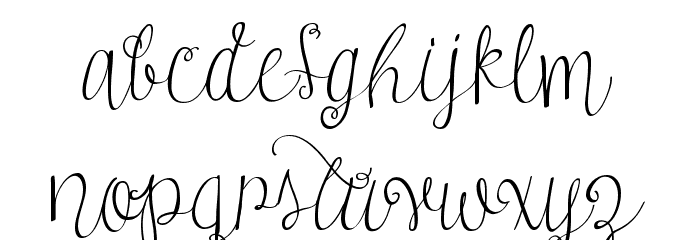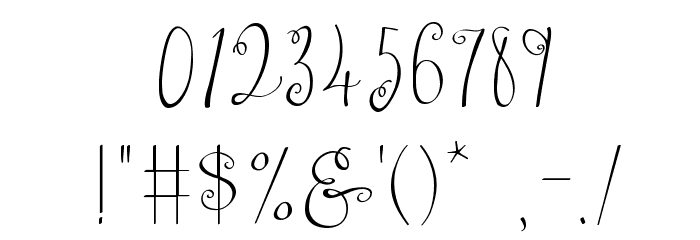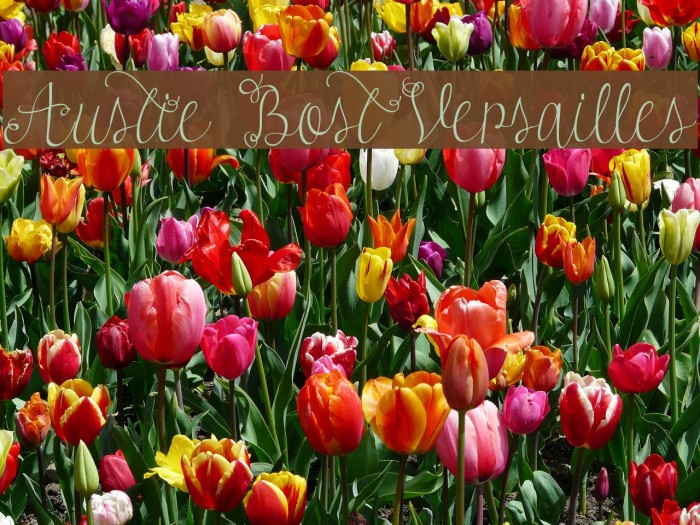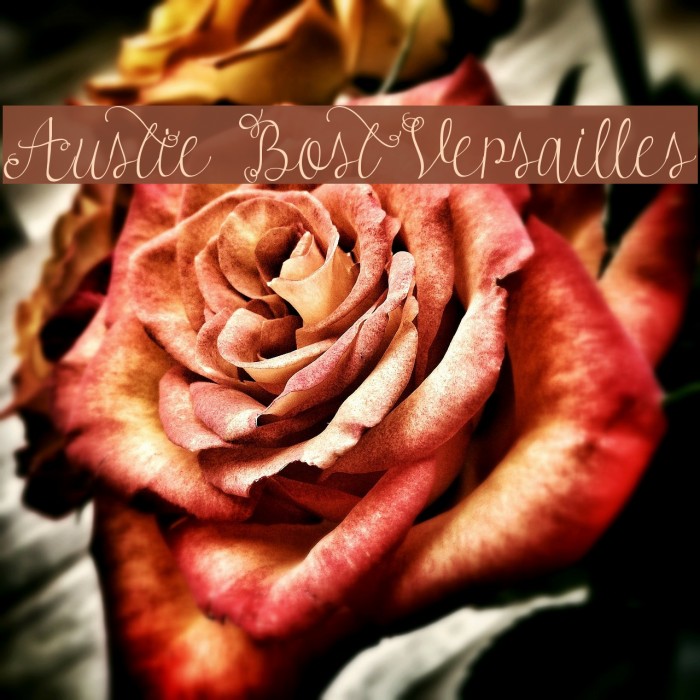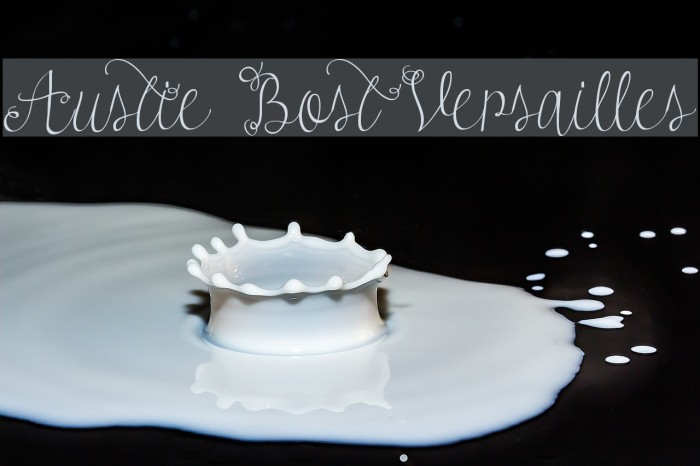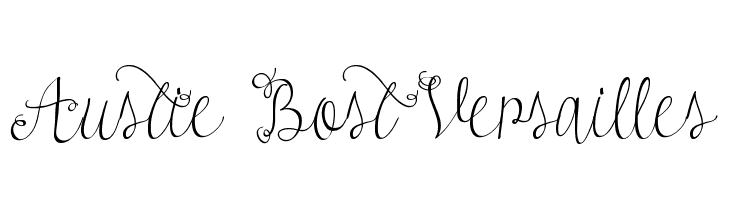
Austie Bost Versailles Font
This elegant script font features intricate swirls and flourishes, giving it a sophisticated and decorative appearance. The uppercase letters are adorned with elaborate loops and curves, while the lowercase letters maintain a more subtle yet still ornate style. The numbers and special characters follow the same decorative theme, making the font cohesive and visually appealing. Its delicate lines and artistic flair make it suitable for projects that require a touch of elegance and creativity.
An ornate script font with intricate swirls and decorative flourishes.
- Proposed Projects: Ideal for wedding invitations, greeting cards, branding, and decorative posters.
- Use Case: Logos, Invitations, Decorative text